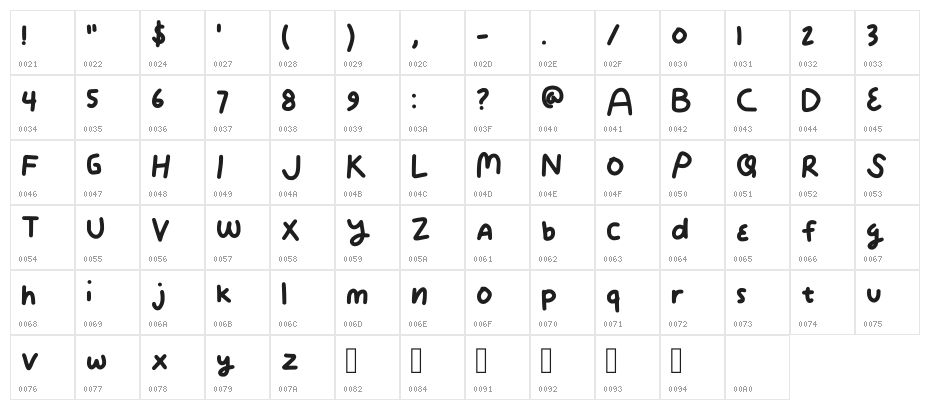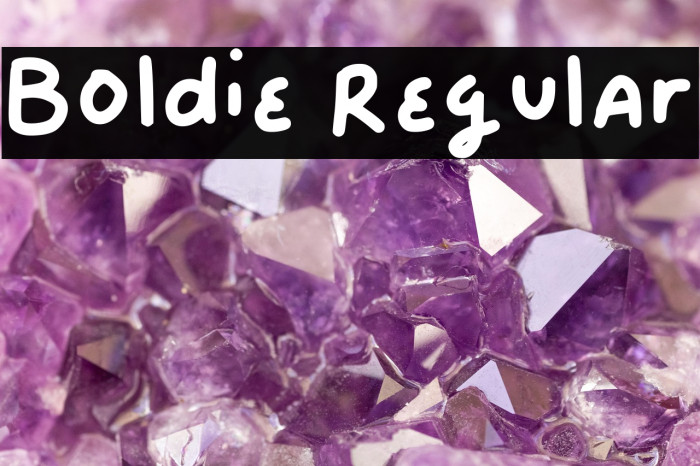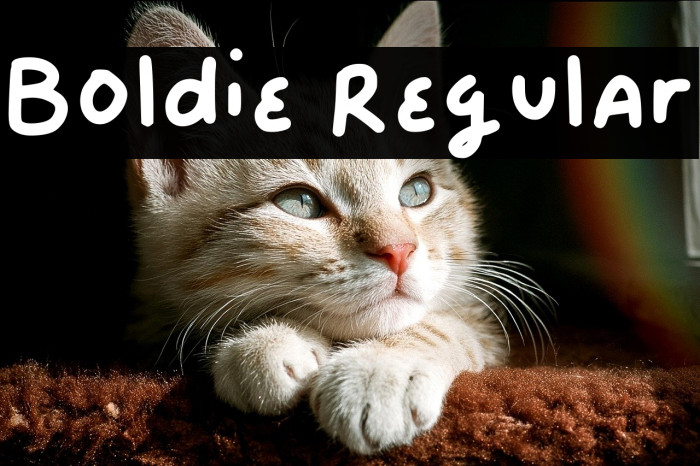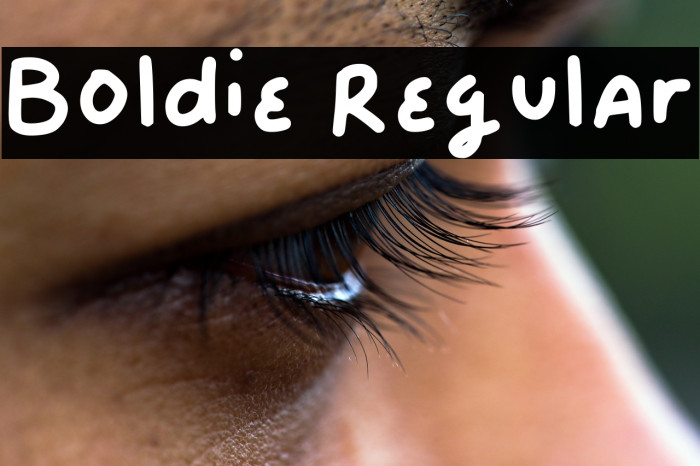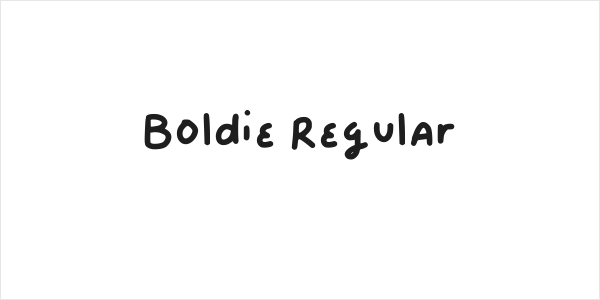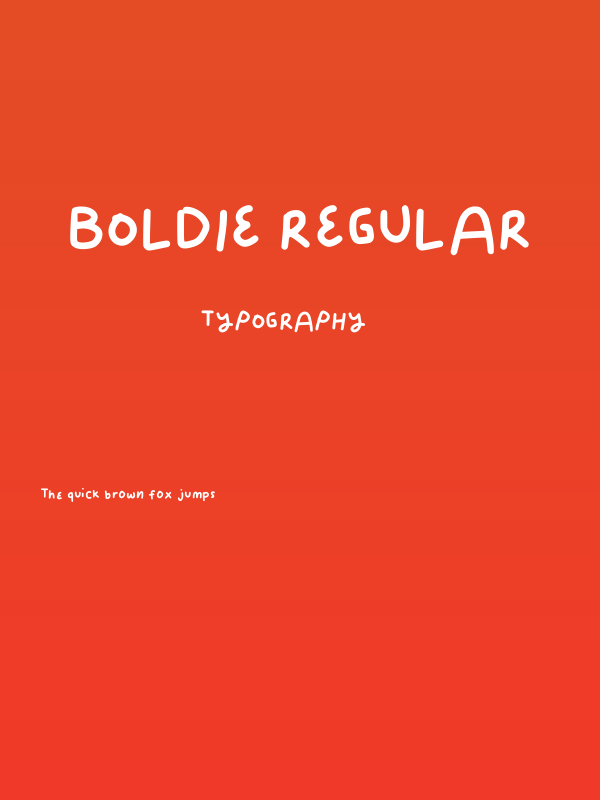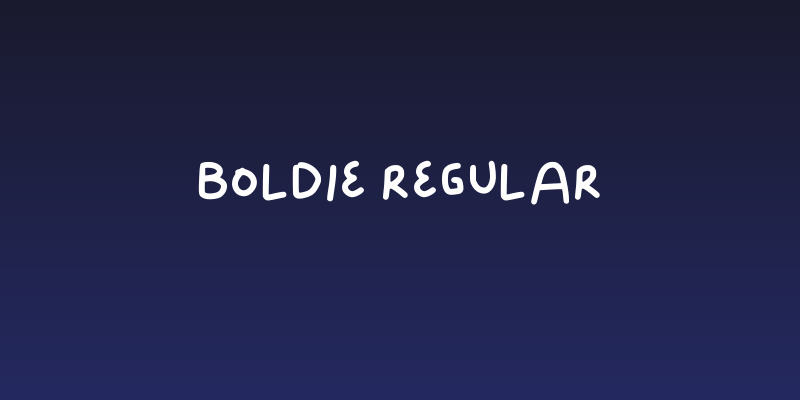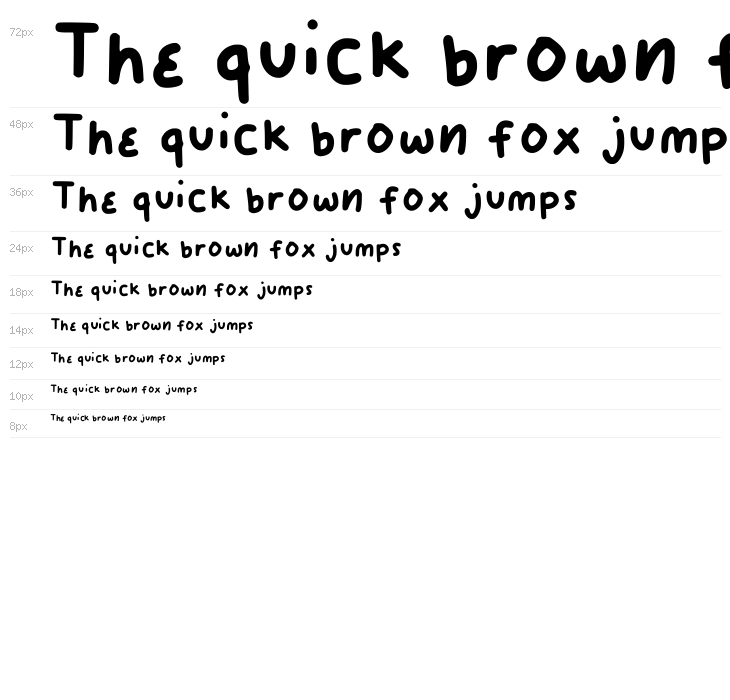
Boldie Regular Font
Boldie Regular Description
A playful, handwritten font with rounded edges and a casual style.
| Use Case | Headlines, Informal text, Branding |
| Proposed Projects | Children's books, casual invitations, playful branding. |